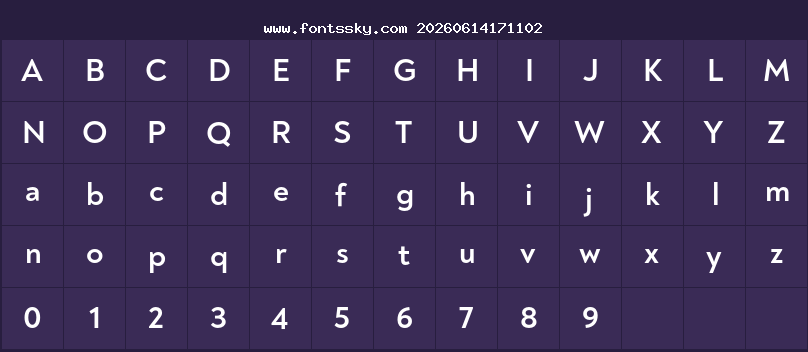
Noah Preview
• Font Name: Noah
• Font ID: 1.000;UKWN;Noah-Bold
• Full Font Name: Noah Bold
• Character Count: 511
• Designer: Svet Simov, Radomir Tinkov, Stan Partalev
• Manufacturer: Fontfabric LLC
About Noah.otf
Noah.otf is a modern, elegant sans-serif font designed for ultimate readability and visual harmony. Perfect for branding, headlines, web design, and print materials.